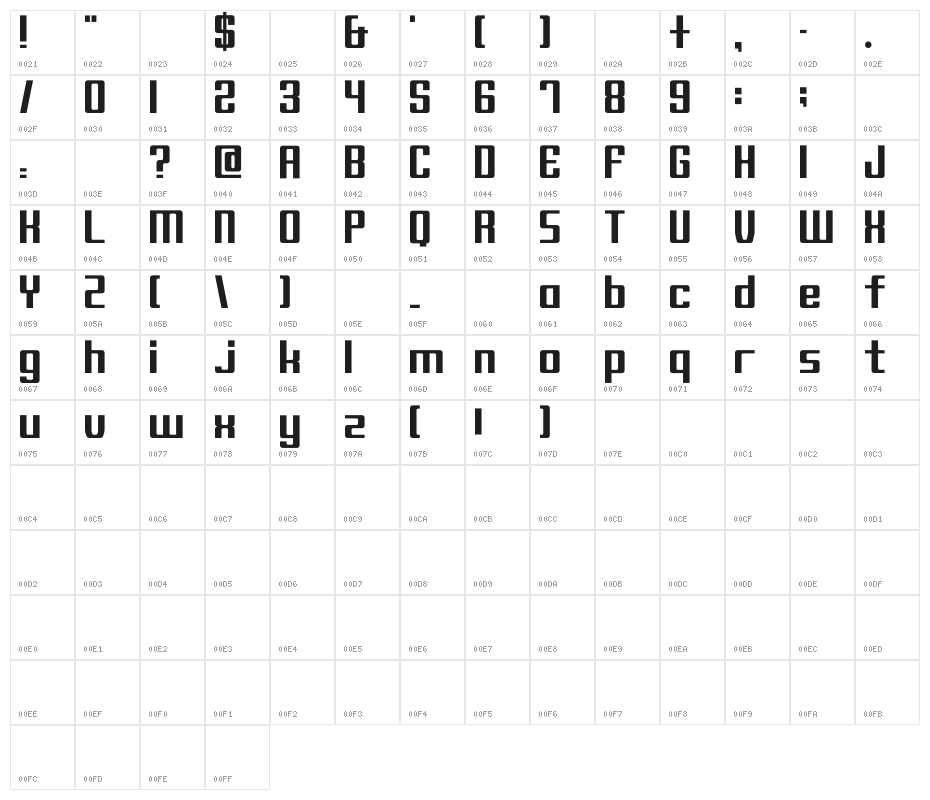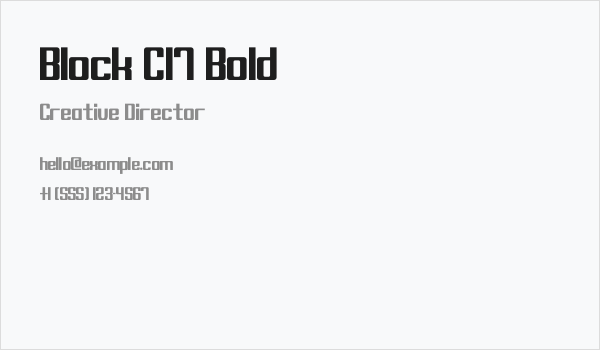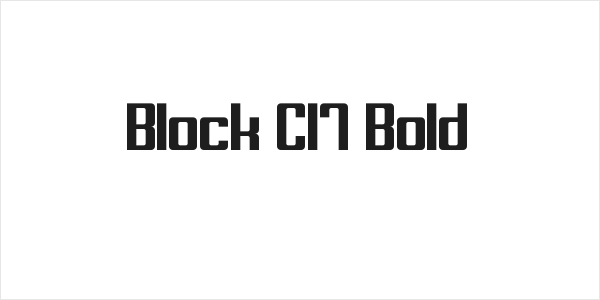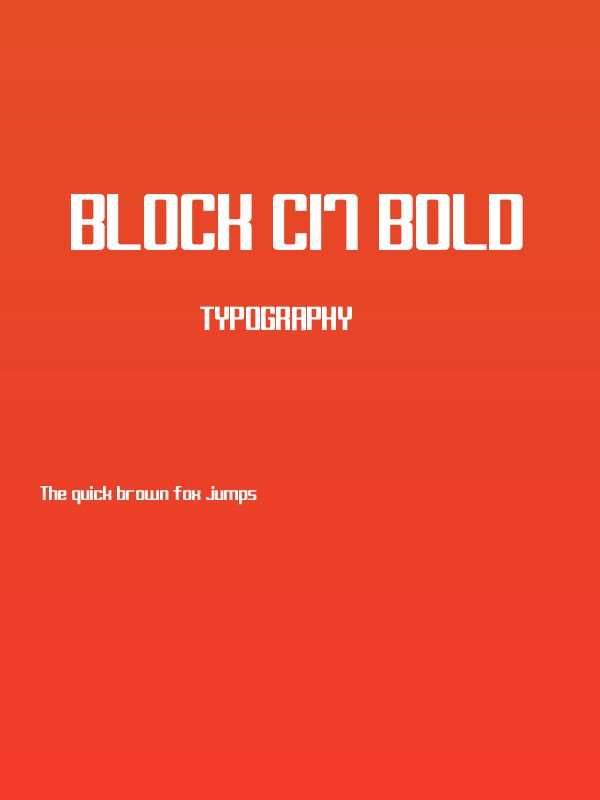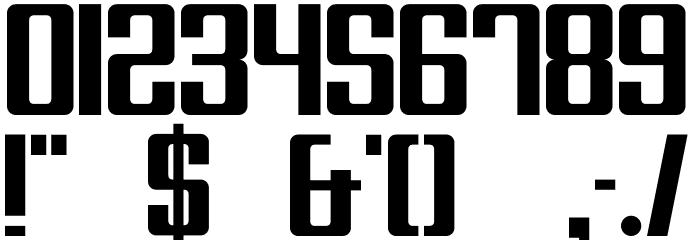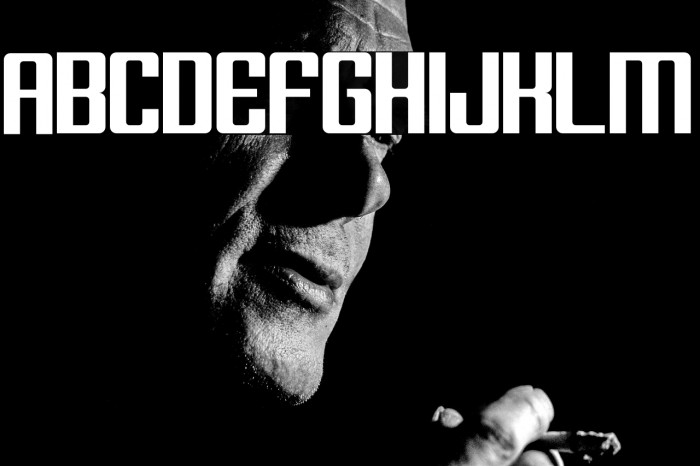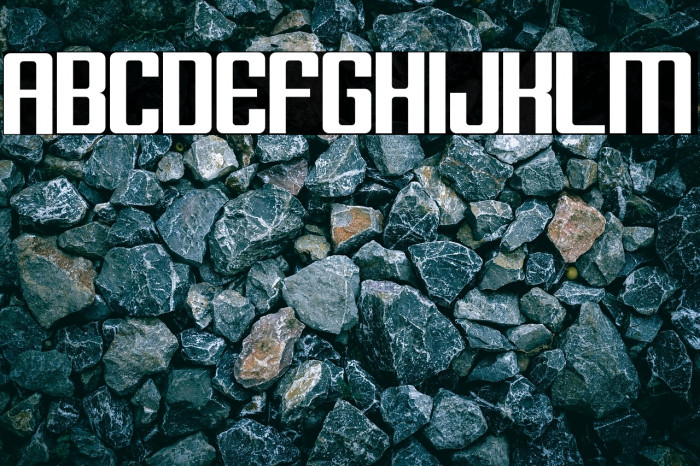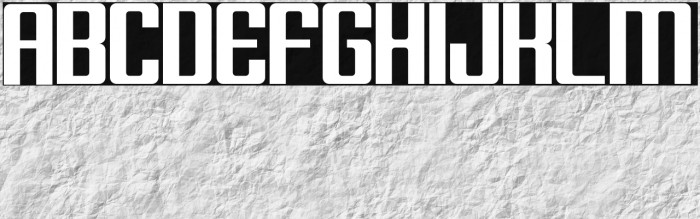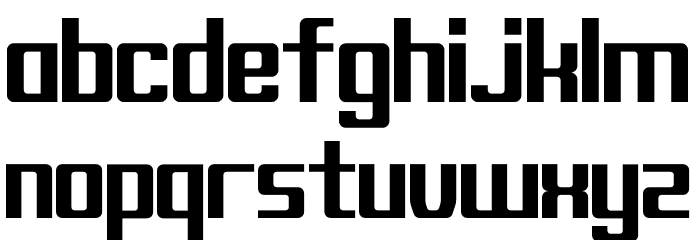
Block C17 Bold Font
Block C17 Bold Description
This font features a bold and geometric design with a strong presence. The characters are constructed with straight lines and sharp angles, giving it a modern and industrial feel. The uppercase letters are uniform in height, while the lowercase letters maintain a consistent baseline, enhancing readability. The numbers are equally bold, matching the style of the alphabetic characters. Special characters are designed to complement the overall aesthetic, making this font suitable for impactful and attention-grabbing designs.
| Proposed Projects | Ideal for branding, posters, headlines, and any design requiring a strong visual impact. |